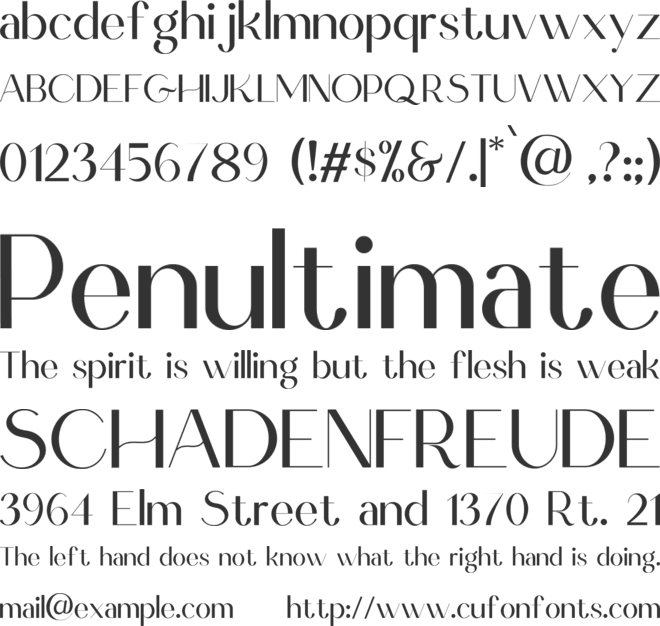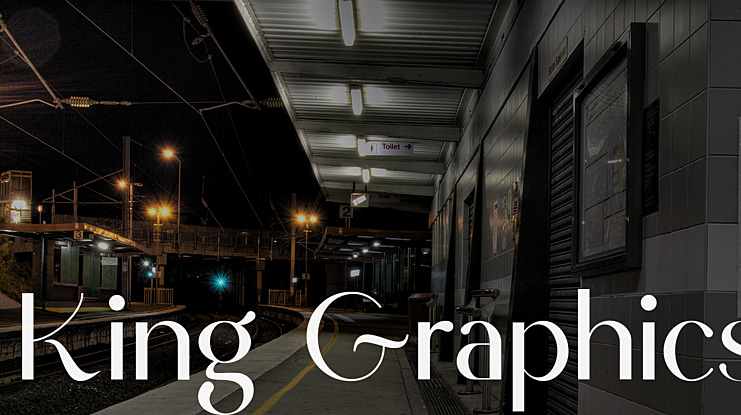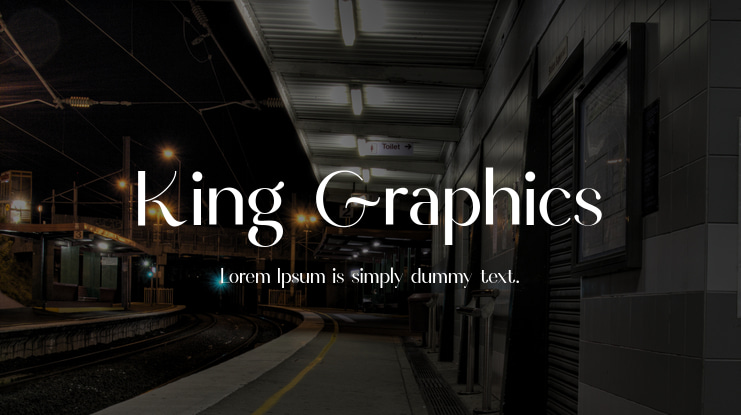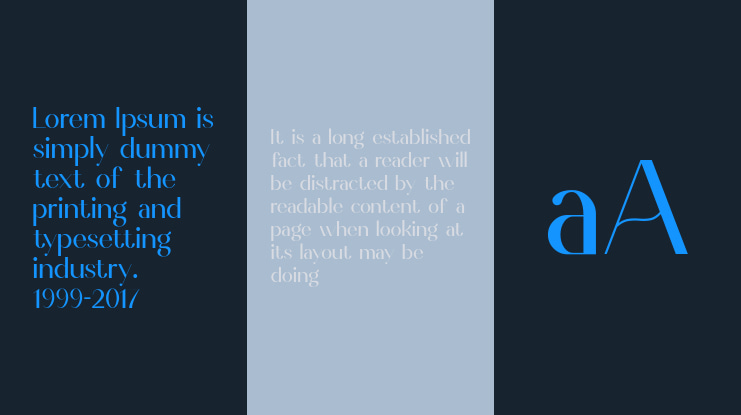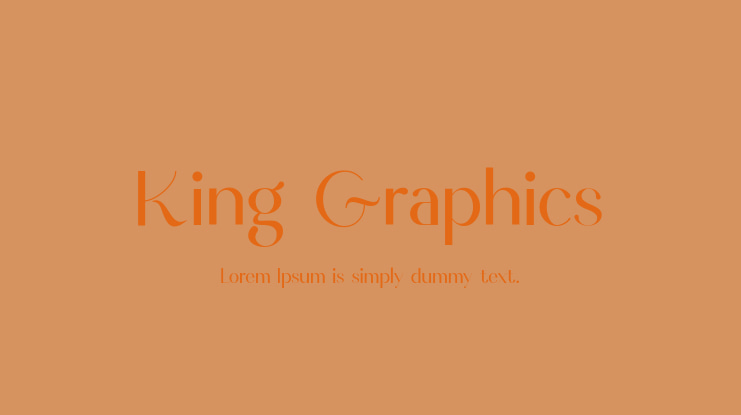
King Graphics Font
King Graphics is an elegant sans serif font. It perfectly used for product presentation, elegant logo design, packaging or invitation cards. This font you will get multilingual support, upper case, lowercase, syimbol, and numeric. So enjoy "King Graphics". simple and clean font.